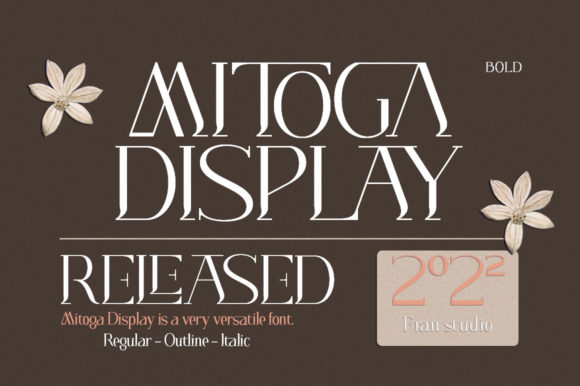
Step into the realm of typography and let Mitoga Display Font cast its enchanting spell on your creative endeavors. This serif masterpiece, crafted by the skilled hands of Franstudio, is a versatile wonder that will elevate your designs to new heights.
Mitoga Display beckons you to explore its captivating curves and elegant serifs. Its timeless beauty adds a touch of sophistication to any project, whether you're crafting a captivating book cover, designing a heartfelt wedding invitation, or creating a striking poster that commands attention.
With Mitoga Display, the possibilities are endless. Let your imagination soar as you craft logos that exude professionalism, design magazine images that captivate readers, or create branding that leaves a lasting impression. This font's versatility extends far beyond the confines of traditional typography. It dances gracefully across a myriad of creative mediums, seamlessly adapting to your unique vision.
Unleash your creativity and let Mitoga Display guide you on a typographic journey like no other. Its PUA encoding grants you effortless access to a treasure trove of glyphs and ligatures, empowering you to add intricate details and flourishes that bring your designs to life.
Transform your creative dreams into tangible realities with Mitoga Display Font. Immerse yourself in its timeless elegance and discover a world of typographic possibilities waiting to be explored. Let Mitoga Display be your muse, your faithful companion on this artistic odyssey.